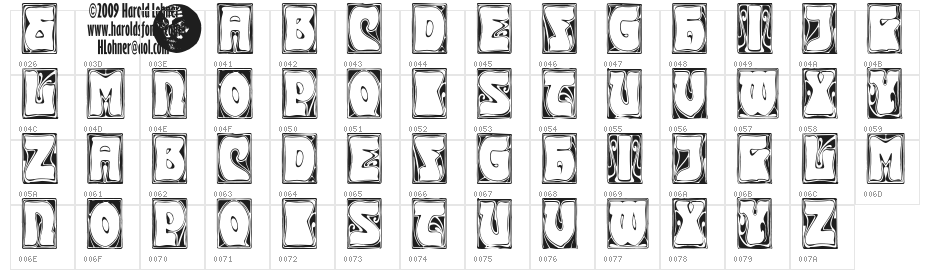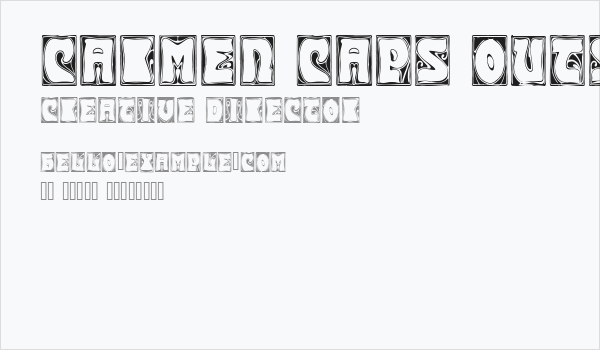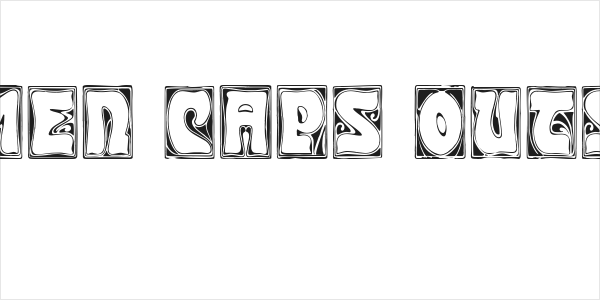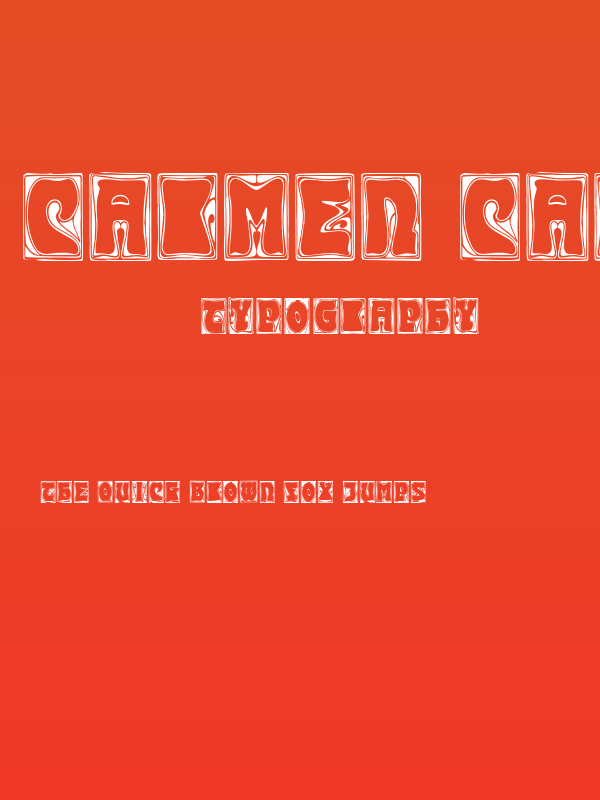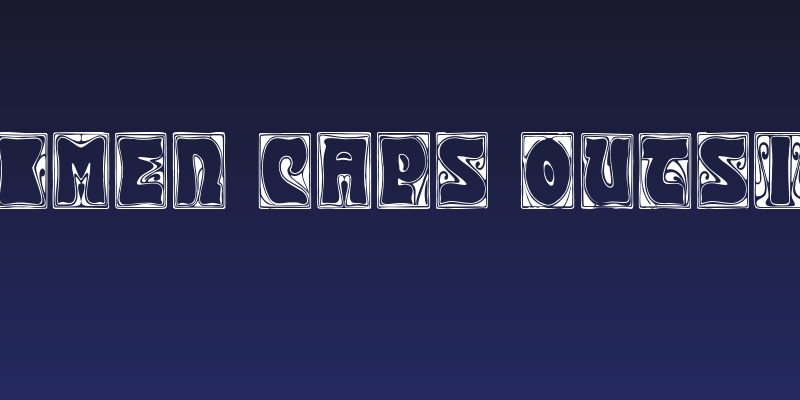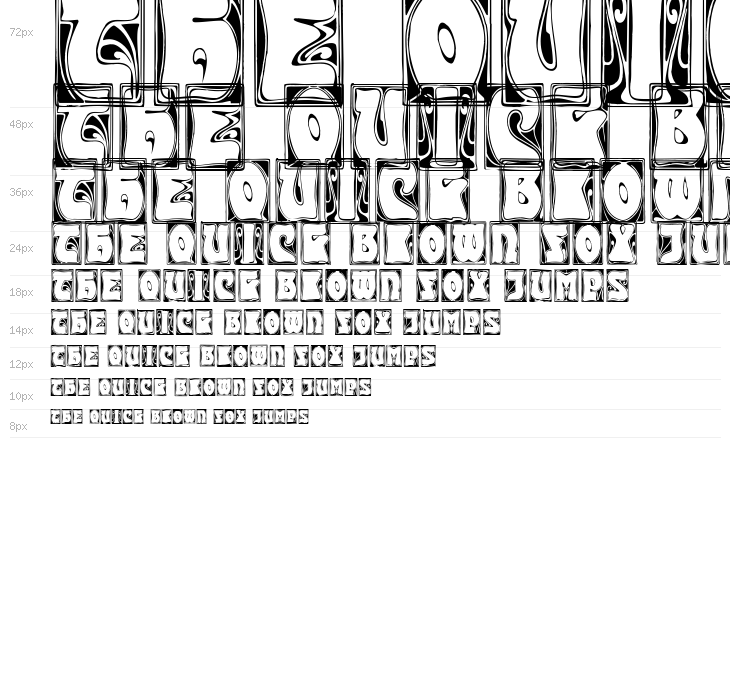
Carmen Caps Outside Font
Carmen Caps Outside Description
This font features a unique and artistic design, with each character enclosed in a square frame. The letters are bold and exhibit a fluid, almost liquid-like pattern within their boundaries, giving them a dynamic and eye-catching appearance. The uppercase and lowercase letters share a consistent style, maintaining the same enclosed, wavy aesthetic. The numbers and special characters also follow this design, ensuring uniformity across all glyphs. The overall look is both modern and decorative, making it suitable for creative and unconventional projects.
| Proposed Projects | Ideal for artistic posters, album covers, and branding that requires a bold, unique statement. |